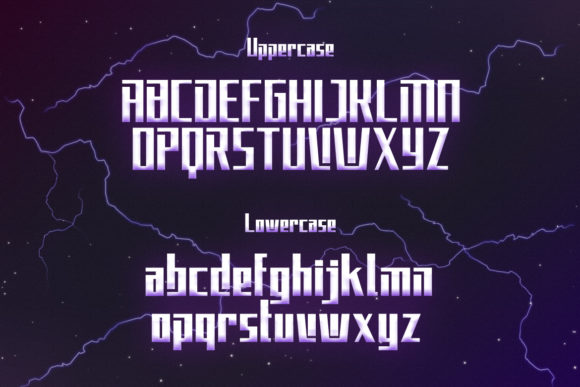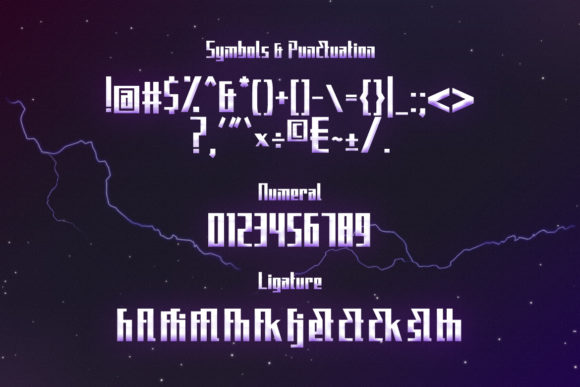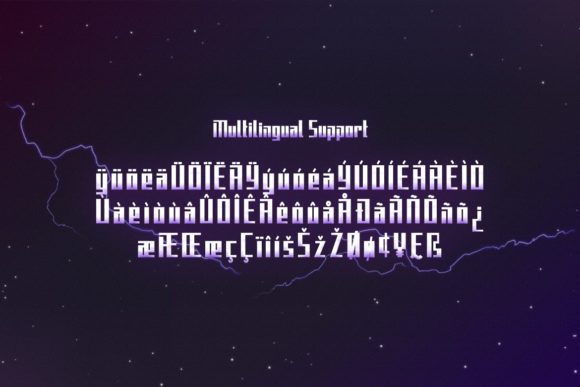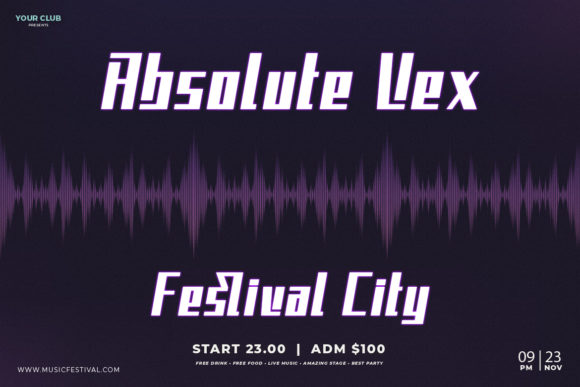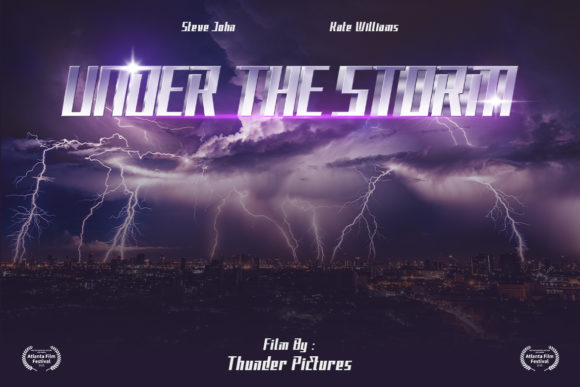
Unleash Your Creativity with the Electrifying Elecstrom Font
Have you ever been struck by a burst of creative energy, like a spark of electricity that courses through your veins? For designers, these moments are what drive us to create something truly remarkable. And with the right tools, we can harness that energy to produce truly outstanding work.
Enter the Elecstrom Font, a thrilling display font that’s perfect for designers looking to add a dash of excitement to their projects. With its bold, energetic feel, the Elecstrom Font is designed to help you create visually stunning designs that grab attention and leave a lasting impression.
Whether you’re working on a graphic novel, a music festival poster, or a futuristic sci-fi concept, the Elecstrom Font is the perfect choice to add a touch of electrifying style to your work. Its versatility and unique character make it a valuable addition to any designer’s toolkit, and we can’t wait to see what amazing creations you’ll come up with using this fantastic font!
Elecstrom Font Key Features
- Font Family: Elecstrom Font offers 5 unique font styles: Light, Regular, Medium, Bold, and Black.
- Unique Characteristics: Elecstrom Font features a futuristic and modern design, with geometric shapes and clean lines, making it perfect for tech-related and high-tech projects.
- Language Support: Supports over 200 languages, including Latin, Cyrillic, and Greek alphabets, ensuring wide versatility in various design applications.
- Font Weight and Style: Offers a range of font weights and styles, allowing designers to create a variety of visual effects and emphasis in their designs.
Elecstrom Font Review
Overall, I was quite impressed with the Electrom Font. ✨ The unique blend of futuristic and industrial elements made it stand out from other fonts in its category. The font’s geometric shapes and bold lines created a striking visual effect, making it perfect for futuristic and tech-related projects.
- ✨ Unique design: Electrom Font’s blend of futuristic and industrial elements makes it perfect for projects that require a bold and edgy look.
- ✨ High legibility: Despite its complex design, the font is surprisingly easy to read, even at small sizes.
- ✨ Versatility: Electrom Font can be used for a wide range of projects, from science fiction to tech-related content.
- ⚠️ Limited character set: Electrom Font’s character set is limited, which may be a problem for projects that require a wide range of special characters.
- ⚠️ Not ideal for body text: While Electrom Font is perfect for headings and titles, it may not be the best choice for body text due to its complexity and limited legibility.
Overall, I would recommend Electrom Font for projects that require a bold and futuristic look. While it may have some limitations, its unique design and high legibility make it a great choice for designers looking to add some edge to their projects.
The Elecstrom Font is ideal for:
- Futuristic and technological designs
- Presentations and documents that require a modern look
- Designs that require a bold and futuristic feel